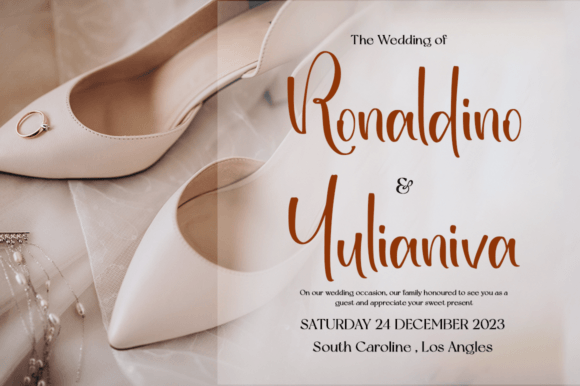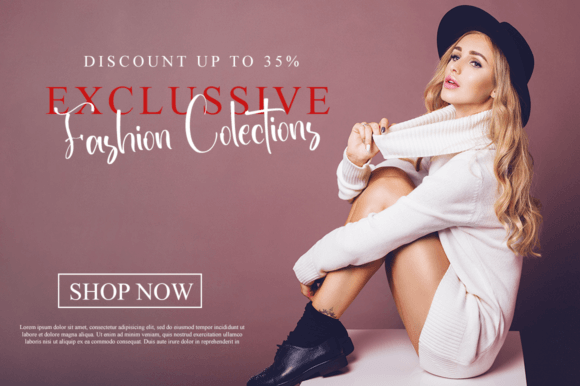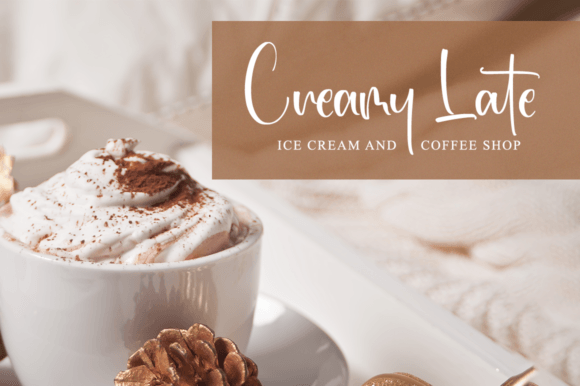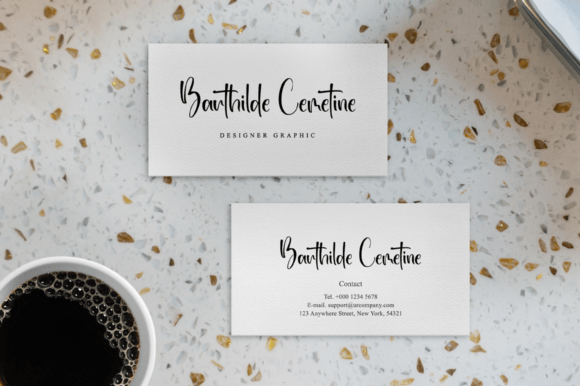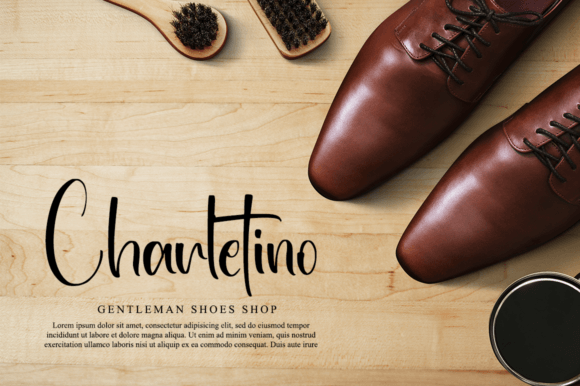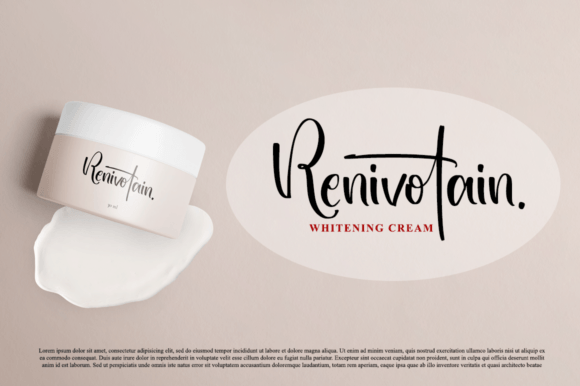
Daverostan Font: Elevate Your Designs with Elegance and Sophistication
In the world of typography, a font can make or break a design project. A well-crafted font can add a touch of elegance, sophistication, and luxury to any creative endeavor. This is where the Daverostan Font comes in – a beautiful and delicate handwritten font that is sure to leave a lasting impression.
What Makes Daverostan Font Special?
Daverostan is a unique and stunning handwritten font that boasts a distinctive feel and a remarkable impact. Its delicate strokes and elegant curves make it perfect for designers and crafters looking to add a touch of luxury to their projects. Whether you’re working on a branding project, a wedding invitation, or a packaging design, Daverostan is sure to impress.
Daverostan is a versatile font that is perfect for a wide range of design projects. Whether you’re a professional designer or a crafter, this font is sure to become a staple in your collection. Here are just a few ways you can use Daverostan:
- Branding and Logo Design: Use Daverostan to create stunning logos and brand identities that exude elegance and sophistication.
- Wedding and Event Design: Add a touch of luxury to your wedding invitations, save-the-date cards, and other event materials with Daverostan.
- Packaging Design: Use Daverostan to create eye-catching packaging designs that stand out on store shelves.
- Stationery and Lettering: Add a personal touch to your stationery, letters, and notes with the beautiful and delicate strokes of Daverostan.
Why Choose Daverostan Font?
With so many fonts available, why choose Daverostan? Here are just a few reasons:
- Unique and Exclusive: Daverostan is a one-of-a-kind font that will set your designs apart from the rest.
- Elegant and Sophisticated: This font exudes luxury and sophistication, making it perfect for high-end designs.
- Versatile: Daverostan can be used for a wide range of design projects, from branding and logo design to packaging and stationery.